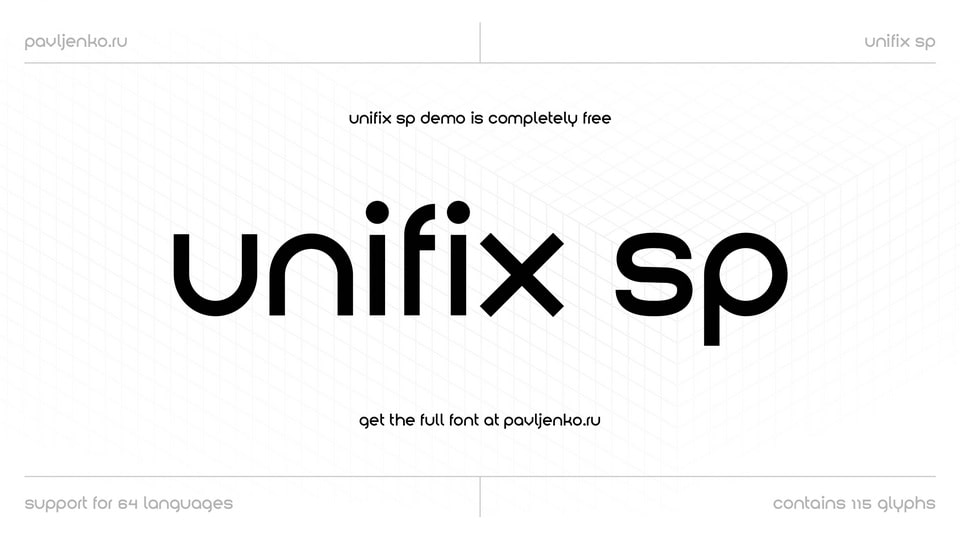
Download Unifix font, a geometric sans serif typeface developed under the influence of Bauhaus and Herbert Bayer’s ideas on a universal type and democratic writing.
Designer: Sasha Pavljenko